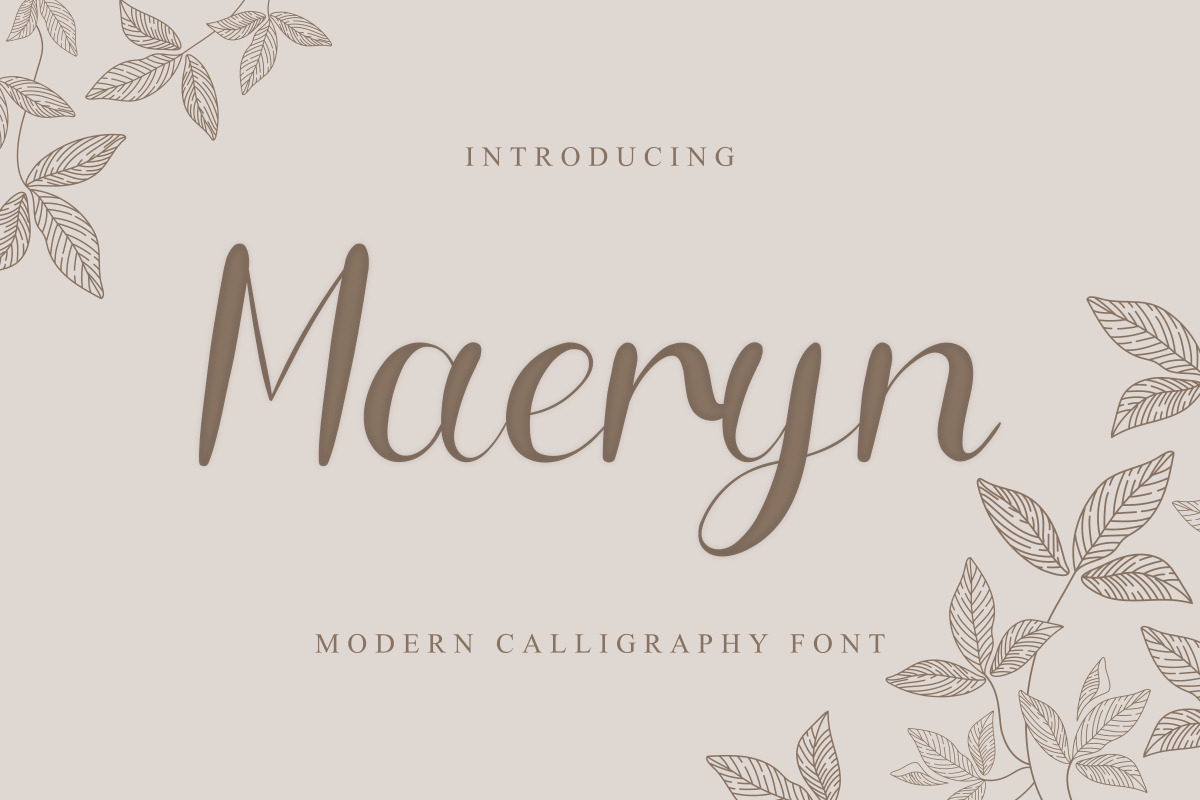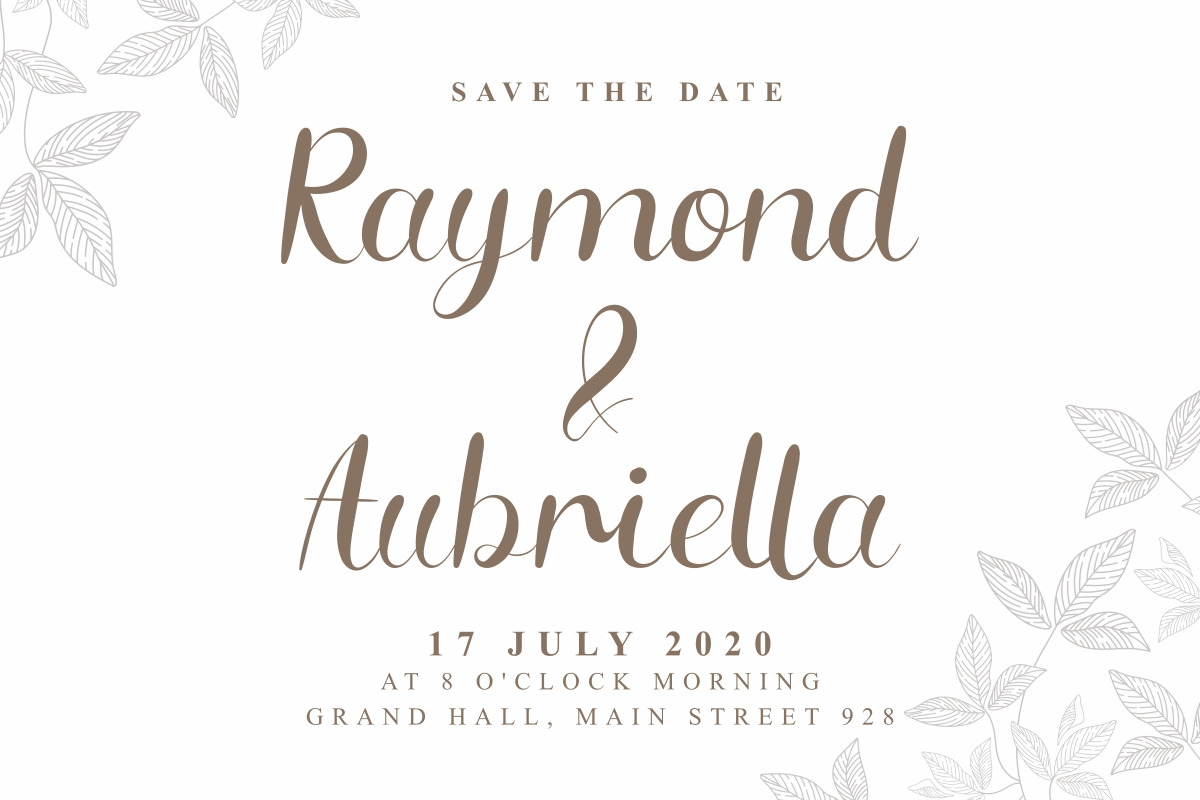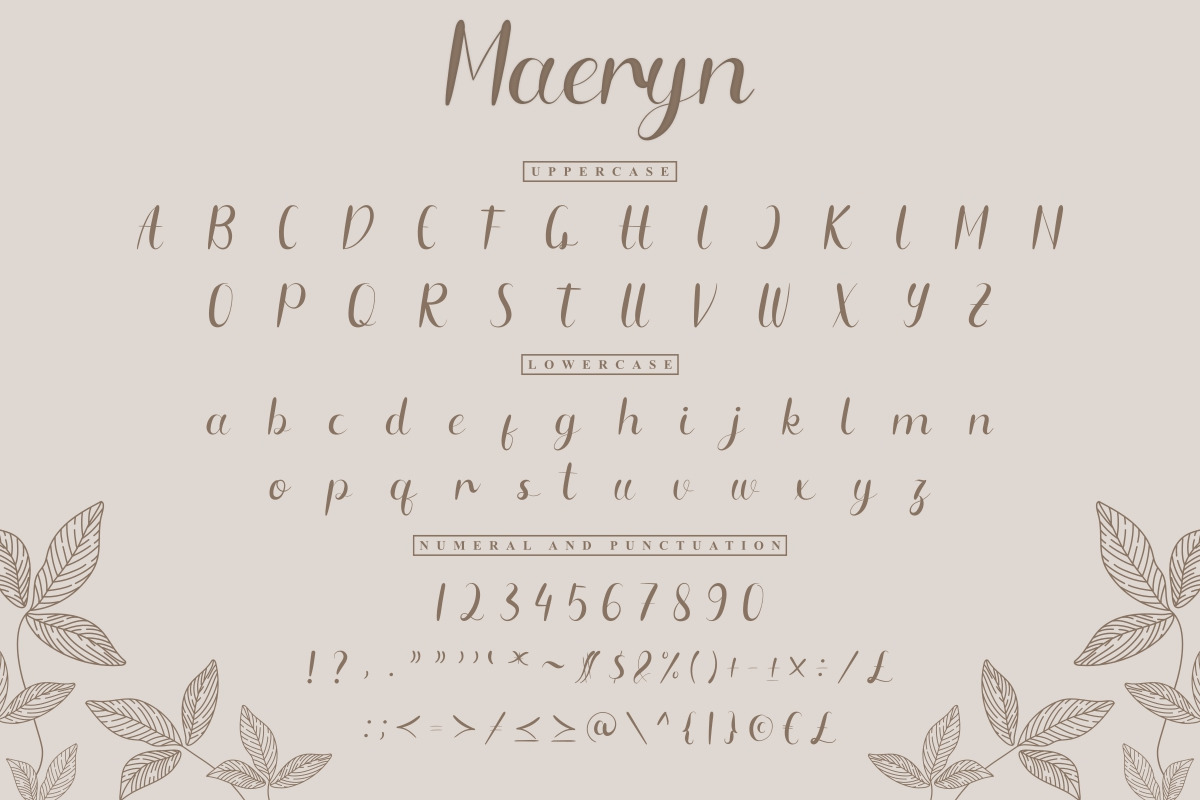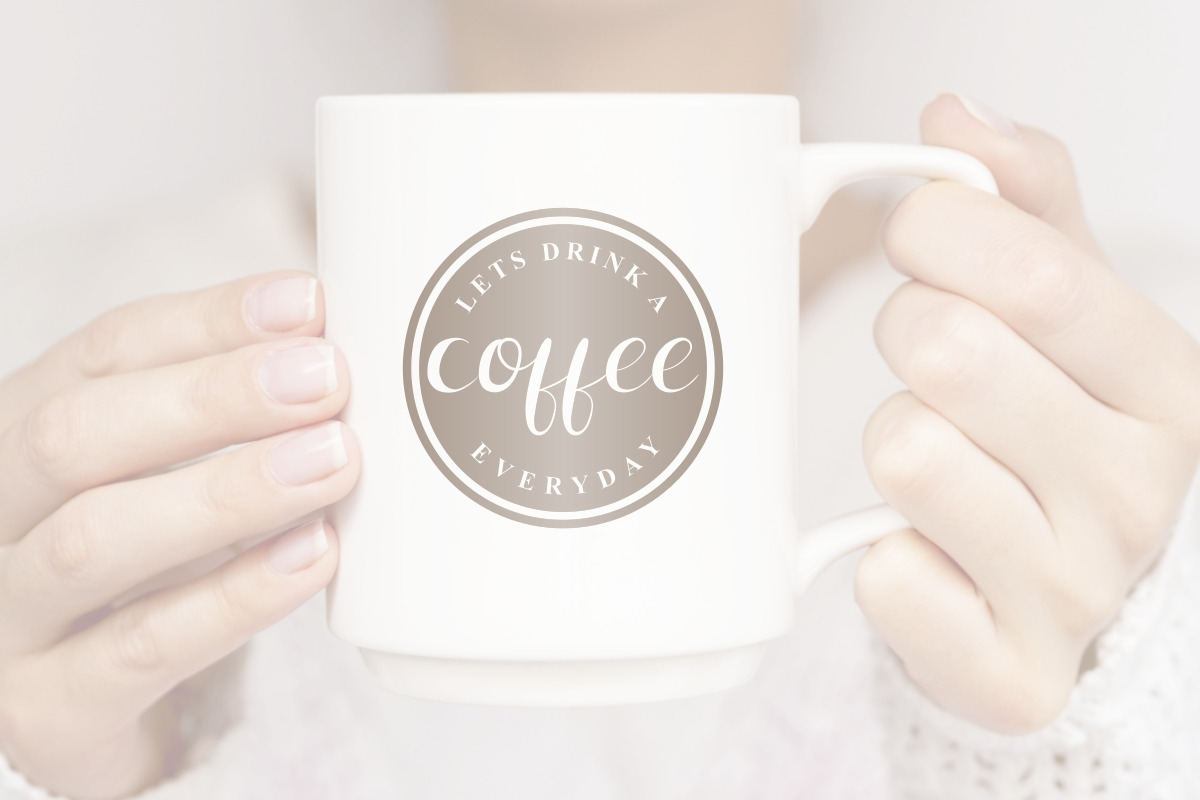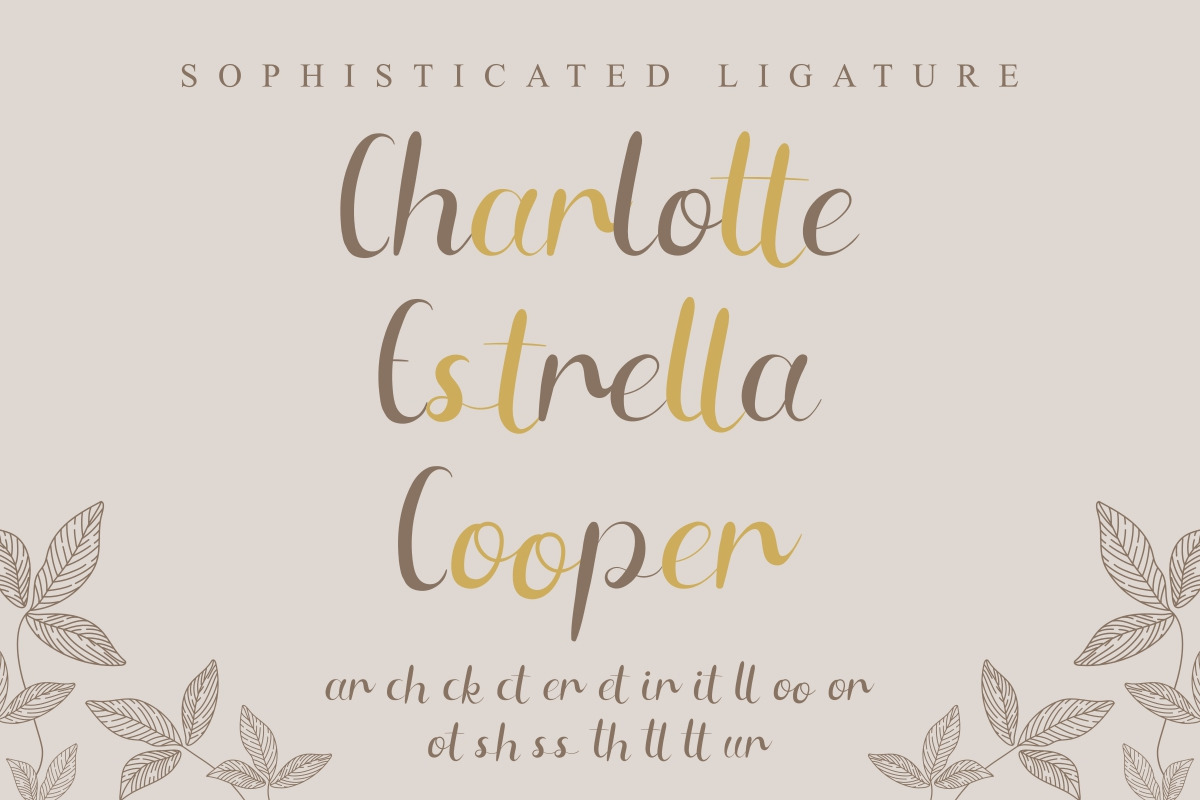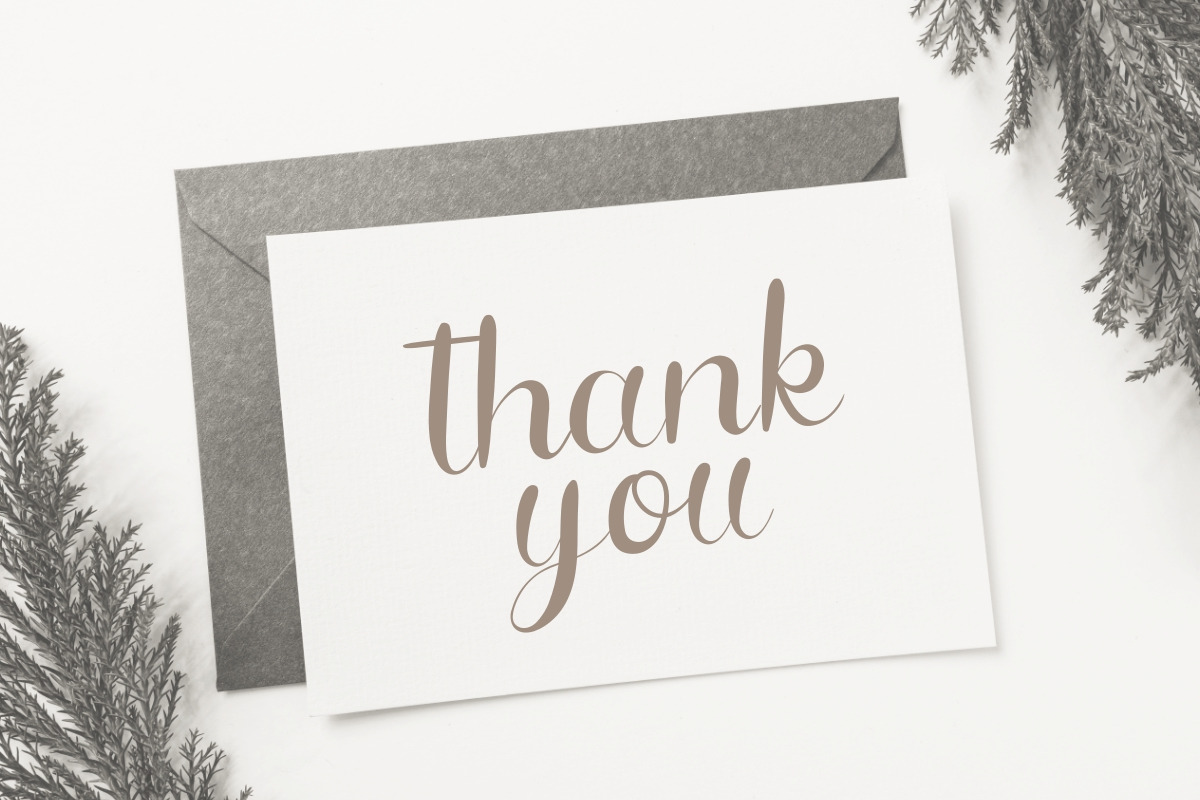
Maeryn Calligraphy Font
The newest font from our lovely artist : Maeryn Calligraphy Font
This is a Calligraphy font, handcrafted from our Studio here in, Indonesia. The artists/designers of this beautiful tyeface is Widiyanti and Sarah Suci.
Maeryn Calligraphy Font is an exclusive calligraphy script typeface with brush style. This font has a stunning characters set, perfectly managed with well spaced and kerning. The theme style of this font will elegant, vintage, stylish, sophisticated and classic brush calligraphic style. You wont find any where else, the font like Maeryn Calligraphy Font.
Maeryn Calligraphy Font will be great for any projects including : branding, logo, stationery, business card, signage, flyer, brochure etc. Almost all industries will be match for this typeface: wedding, events, real estate, architect, law firm, florist, gardening, makeup artist, travel, hotel, musician etc